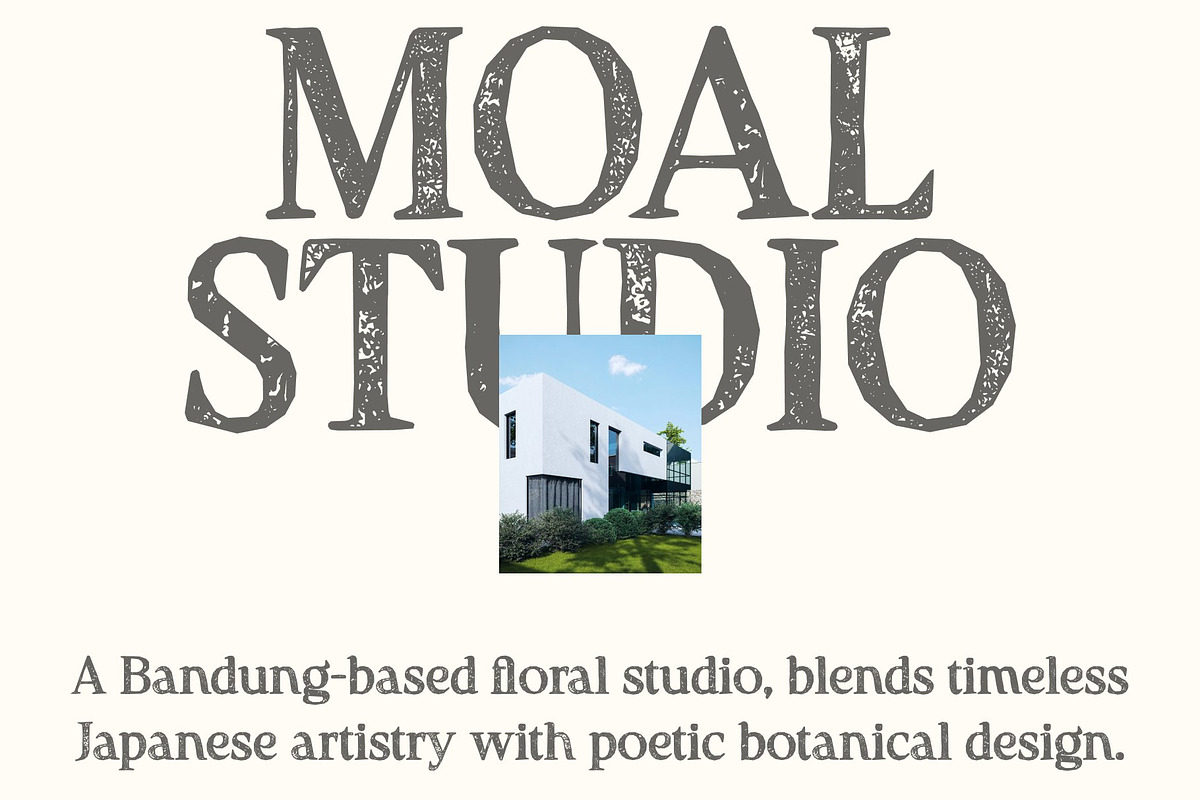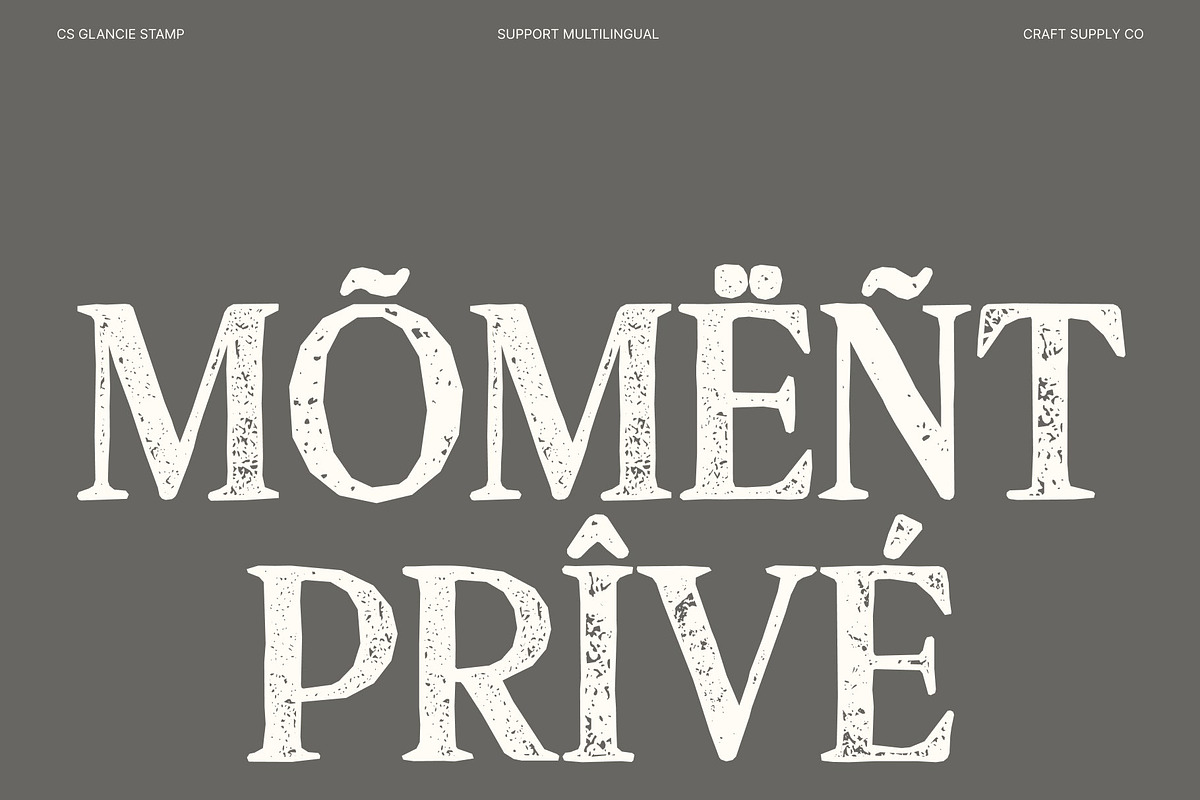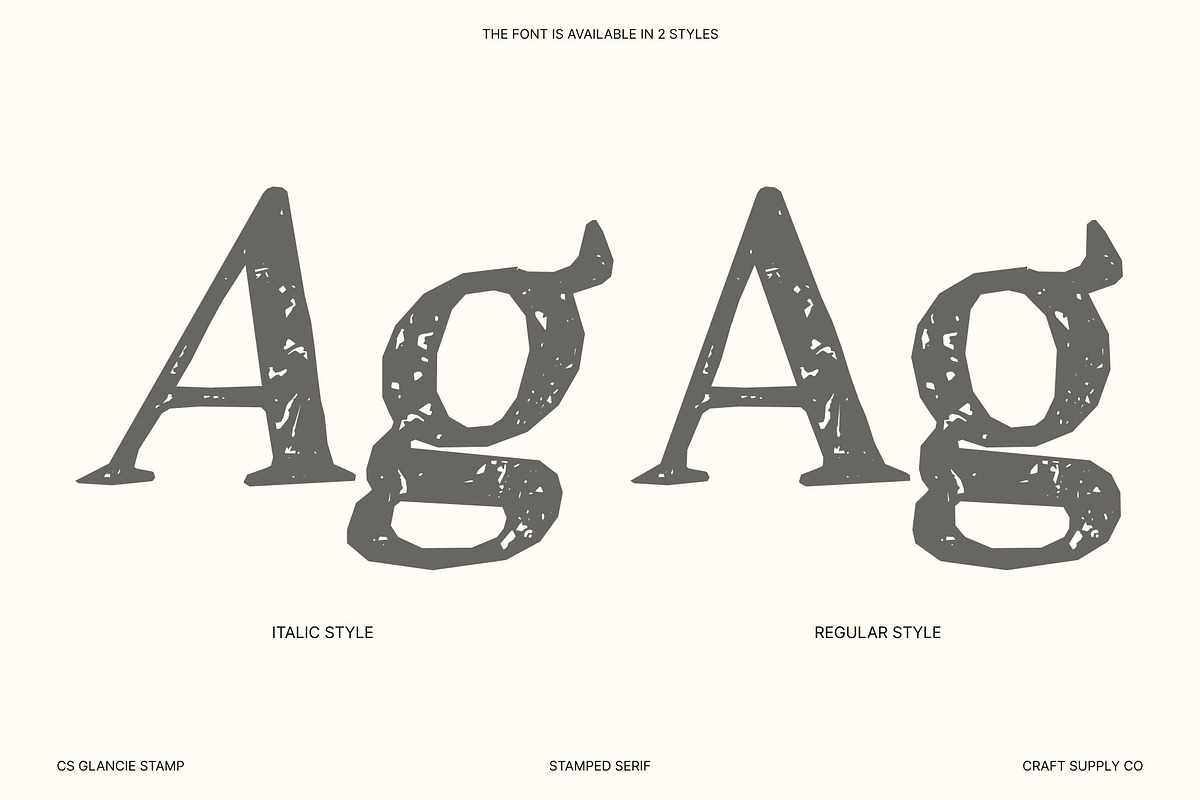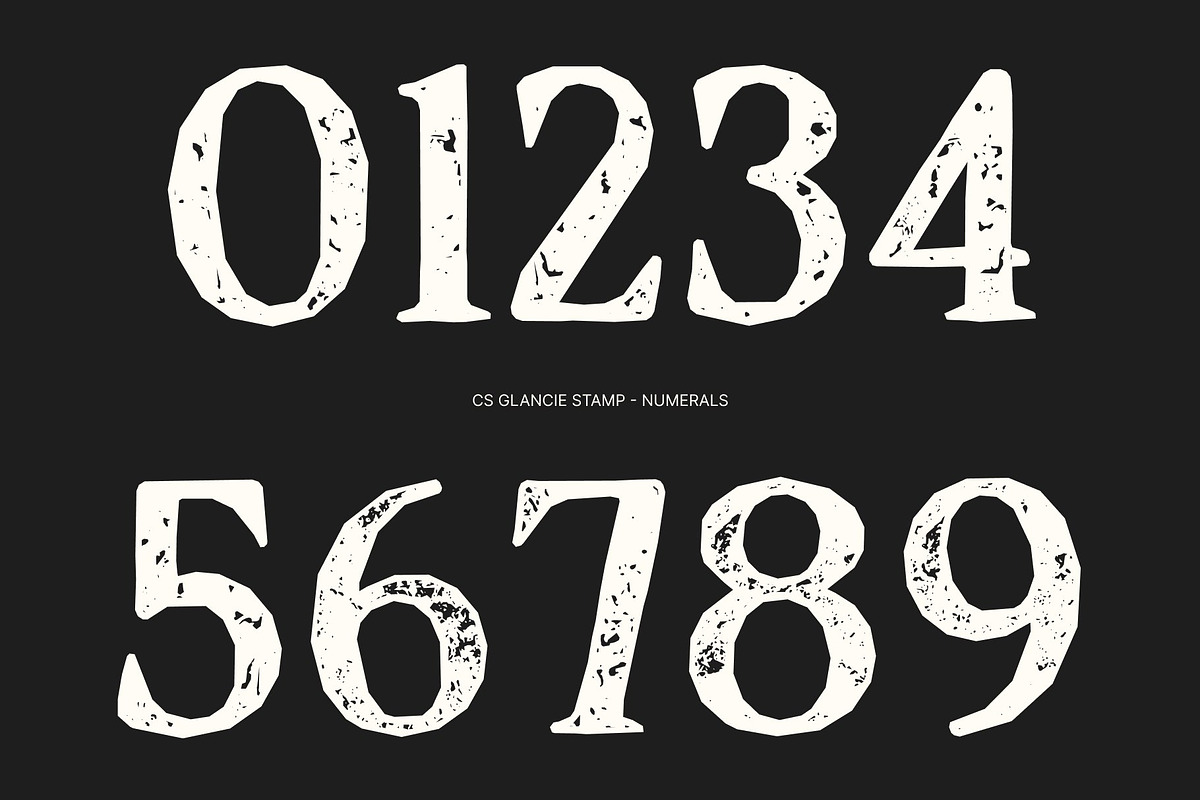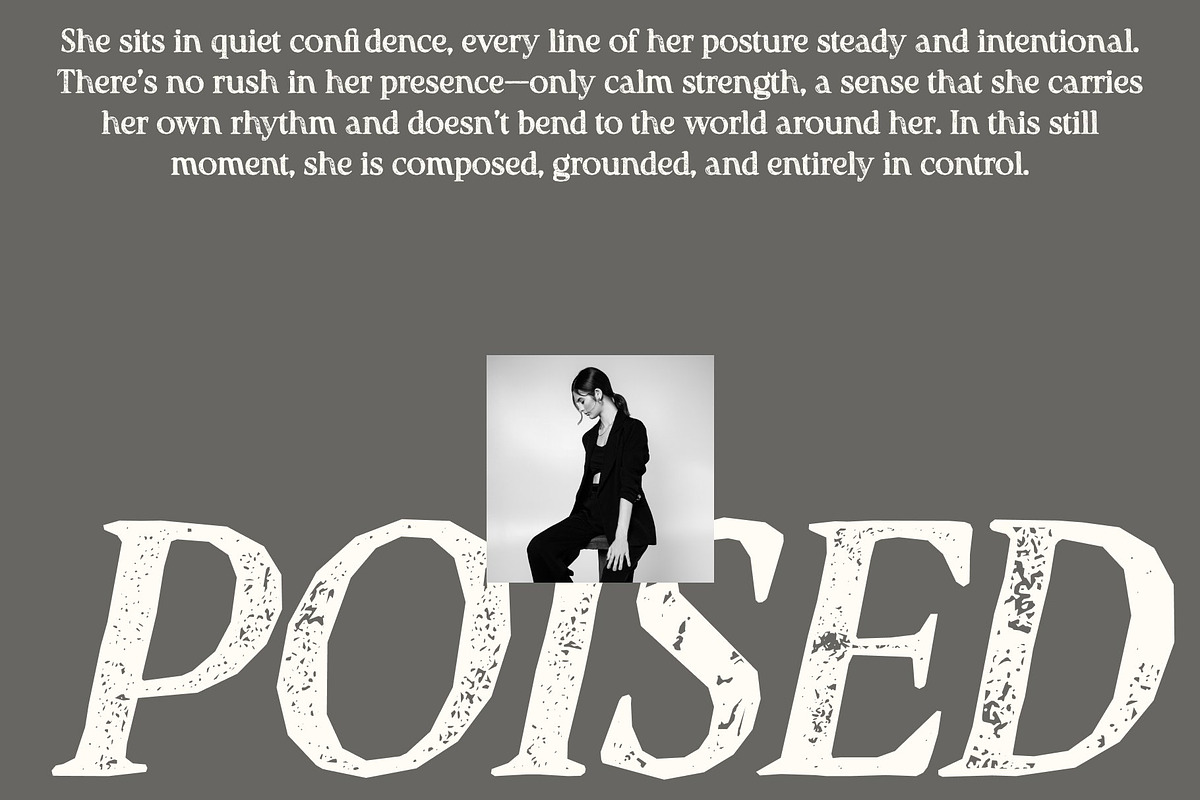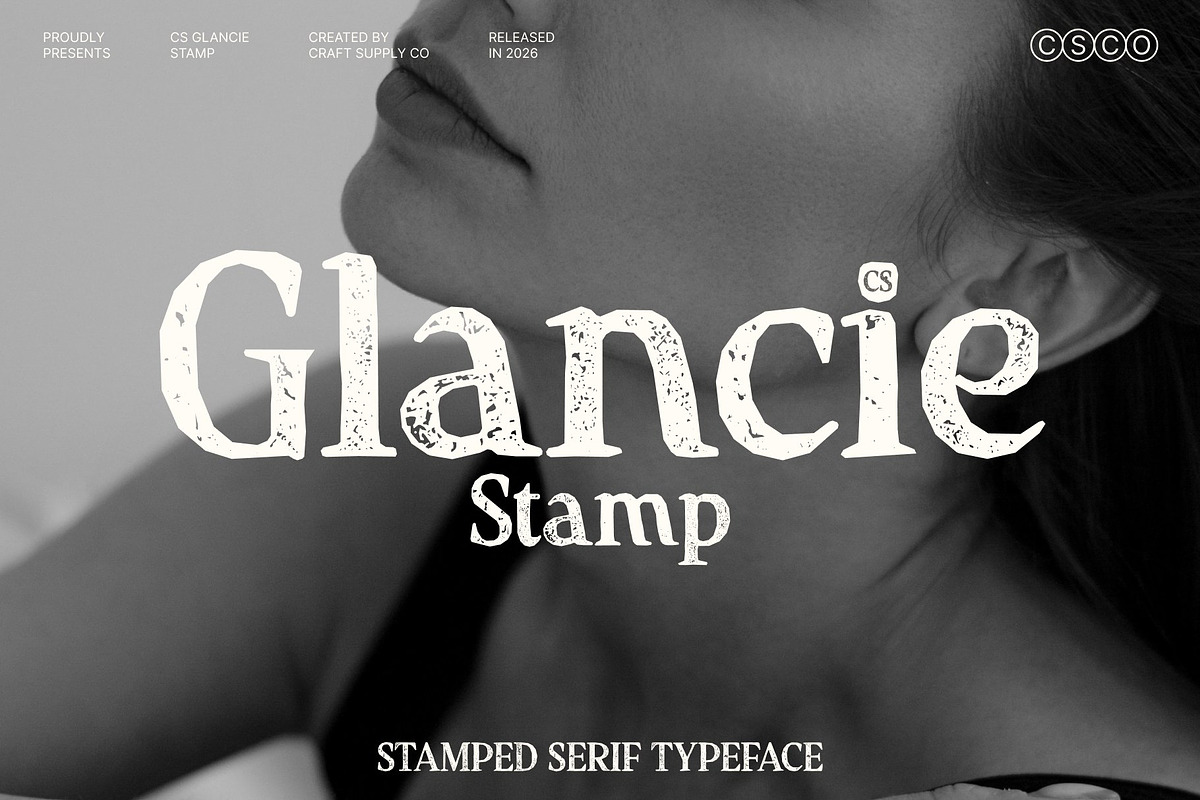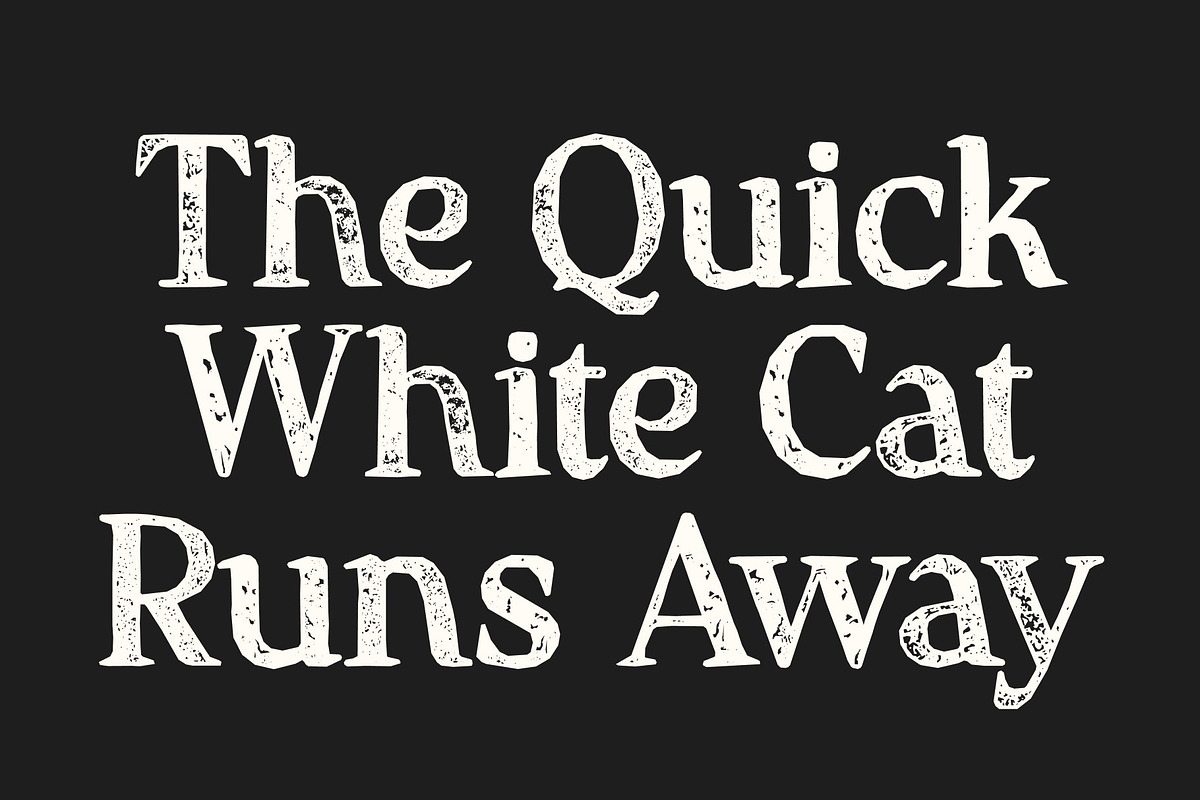
CS Glancie Stamp
CS Glancie Stamp – Modern Sophistication with Bold Vintage Elegance
Refined Modern Serif Design This is a modern serif font that balances elegance and professionalism, now enriched with a subtle stamp texture that adds warmth and timeless character. Its bold serifs and refined proportions create a sophisticated presence that feels both contemporary and classic.
Elegant Details with Printed Character Strong serifs provide structure and confidence, while smooth curves bring refinement and luxury. The stamped finish introduces gentle imperfections and an inked, tactile quality, enhancing the font’s personality with a handcrafted, vintage touch.
Perfect for Luxury and High-End Branding Ideal for luxury branding, editorial layouts, fashion campaigns, logos, and packaging, this font elevates typography into a statement of class and refinement. The combination of modern precision and vintage texture makes it stand out across both print and digital media.
A Typeface with Soul and Presence This font embodies modern craftsmanship with timeless appeal. Its graceful rhythm and bold elegance deliver a confident visual voice, perfect for designers who value sophistication, clarity, and enduring style.